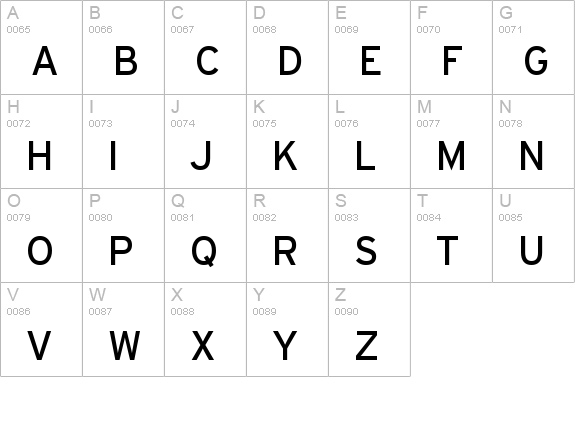
PFTransit Medium is a balanced, medium-weight variant in the PFTransit typeface family \xE2\x80\x94 well suited to sub-headlines, navigation, and balanced editorial work.
PFTransit Medium font is a versatile and modern typeface that strikes the perfect balance between elegance and readability. With its medium weight, this font is ideal for a wide range of design projects, from branding to editorial design. The clean lines and contemporary look of PFTransit Medium make it a popular choice for both print and digital applications. What sets PFTransit Medium apart is that it is available for free download at FontsMarket.com. This means that you can easily access and use this high-quality font in your projects without any cost. Whether you are a professional designer or a hobbyist looking to elevate your designs, PFTransit Medium is a valuable addition to your font library. Download it today and see how it can enhance the visual impact of your creations.